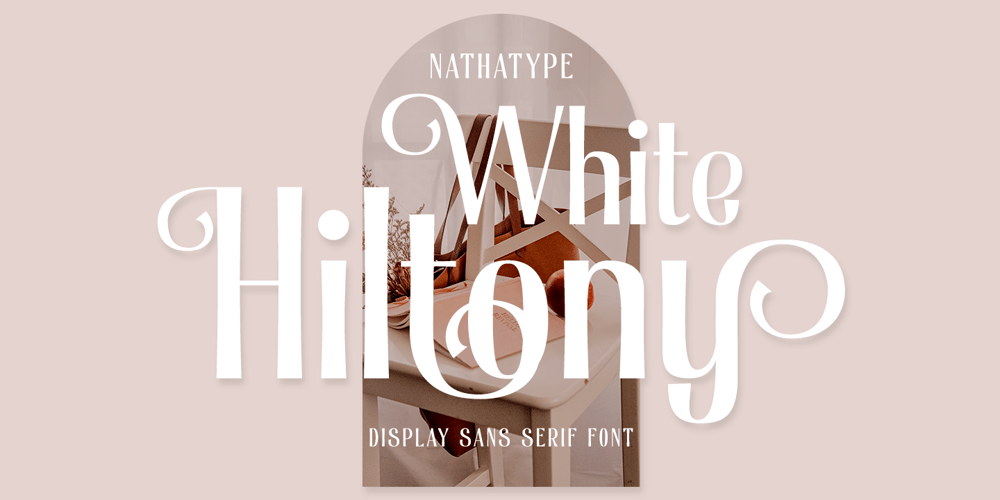
White Hiltony Font Family was designed by Donis Miftahudin and published by Nathatype. White Hiltony contains 1 styles and family package options. Your selected font type has a big influence on your customers’ perceptions on your designs. It can even beautify or destroy them.With White Hiltony, worry no more about a perfect font for your designs as it is a lovely display sans serif font applicable for elegant, stylish designs. This font has no serif making it look more modern and simple. Furthermore, White Hiltony has regular structures to make it legible enabling you to freely use the font due to its great legibility. Enjoy the features available here.Features: Alternates Ligatures Multilingual Supports PUA Encoded Numerals and Punctuations White Hiltony fits best for various design projects, such as brandings, posters, banners, logos, magazine covers, quotes, headings, printed products, greeting cards, merchandise, social media, etc. Find out more ways to use this font by taking a look at the font preview.Thanks for purchasing our fonts. Hopefully, you have a great time using our font. Feel free to contact us anytime for further information or when you have trouble with the font. Thanks a lot and happy designing.